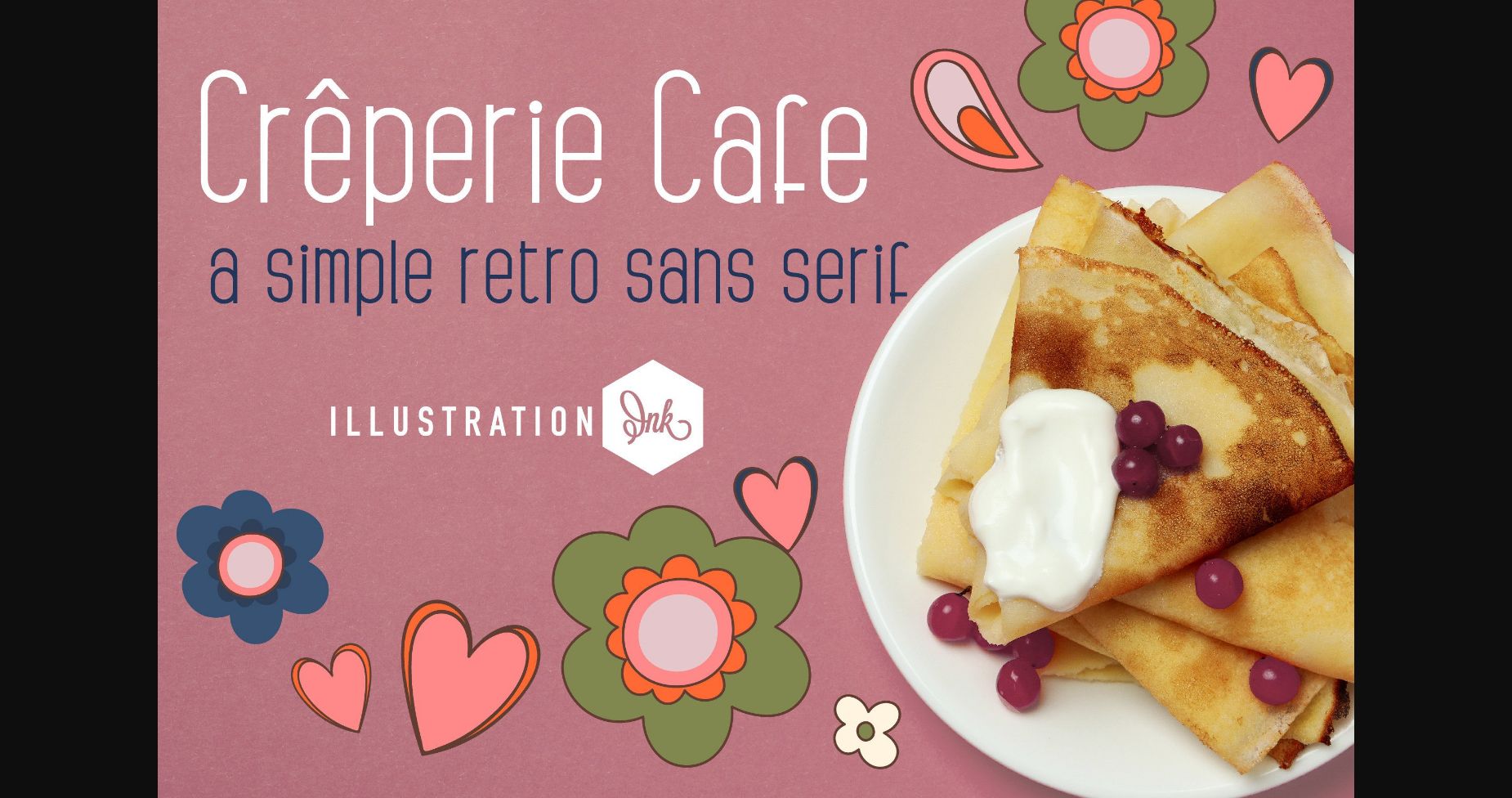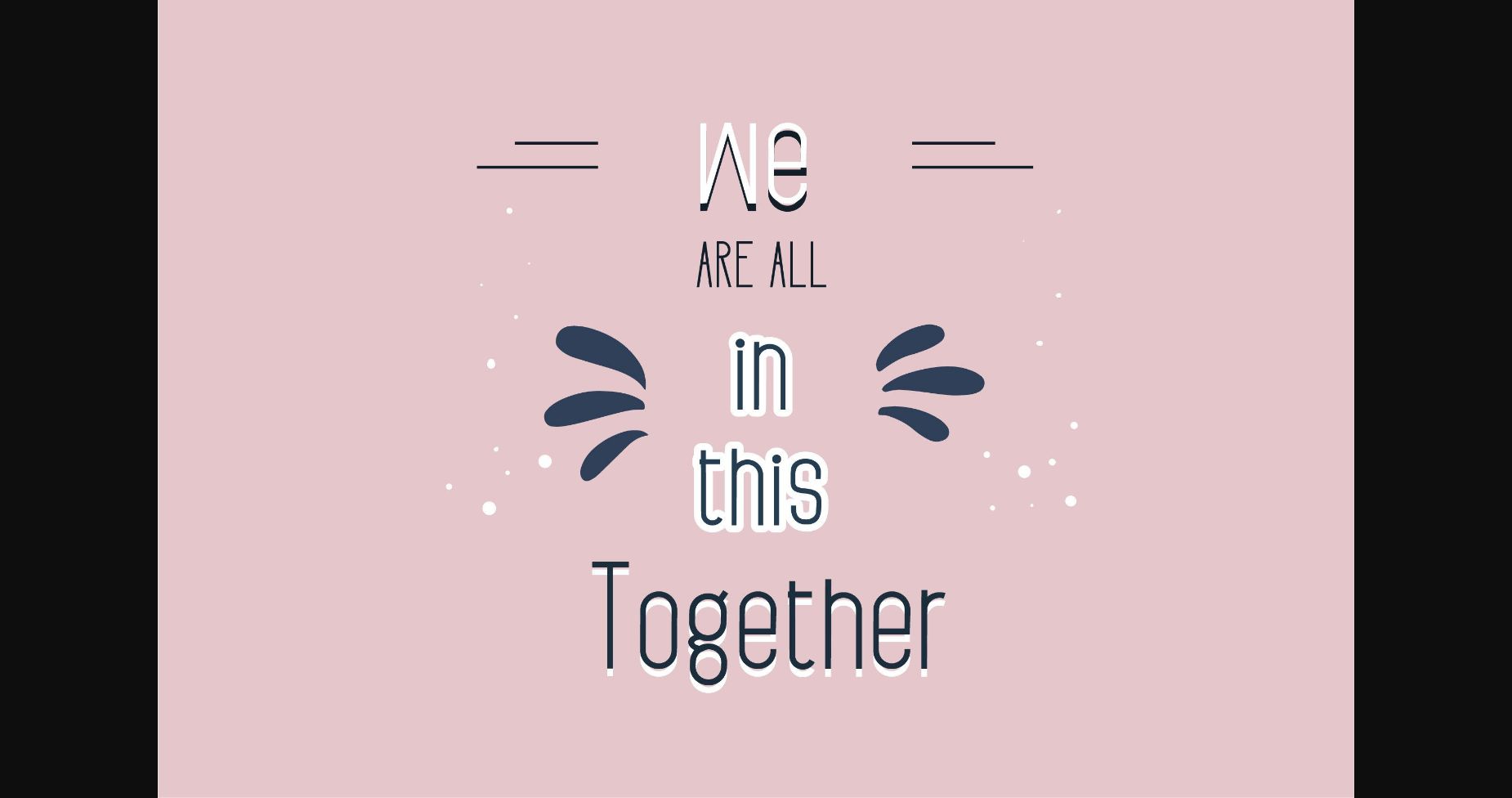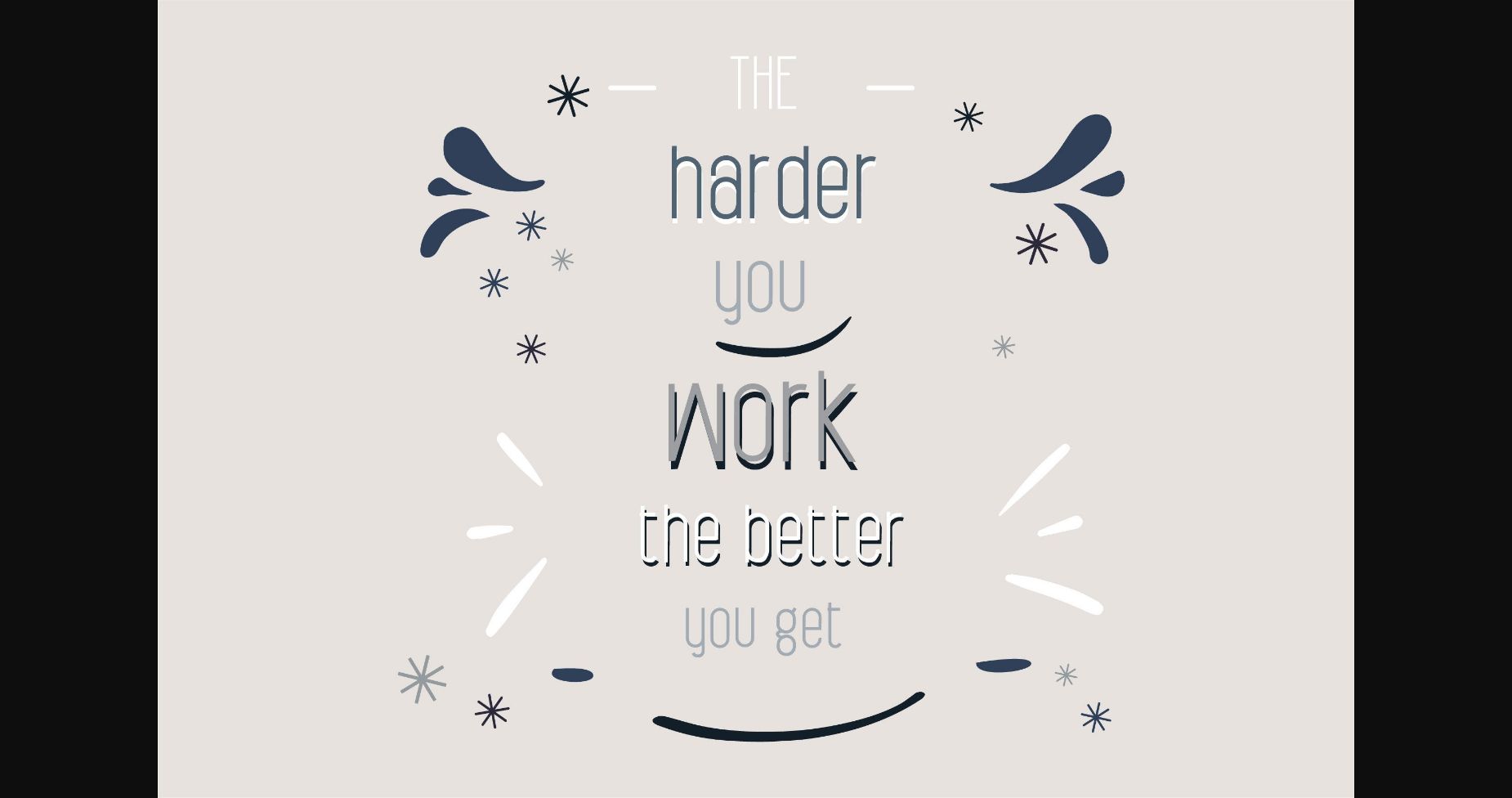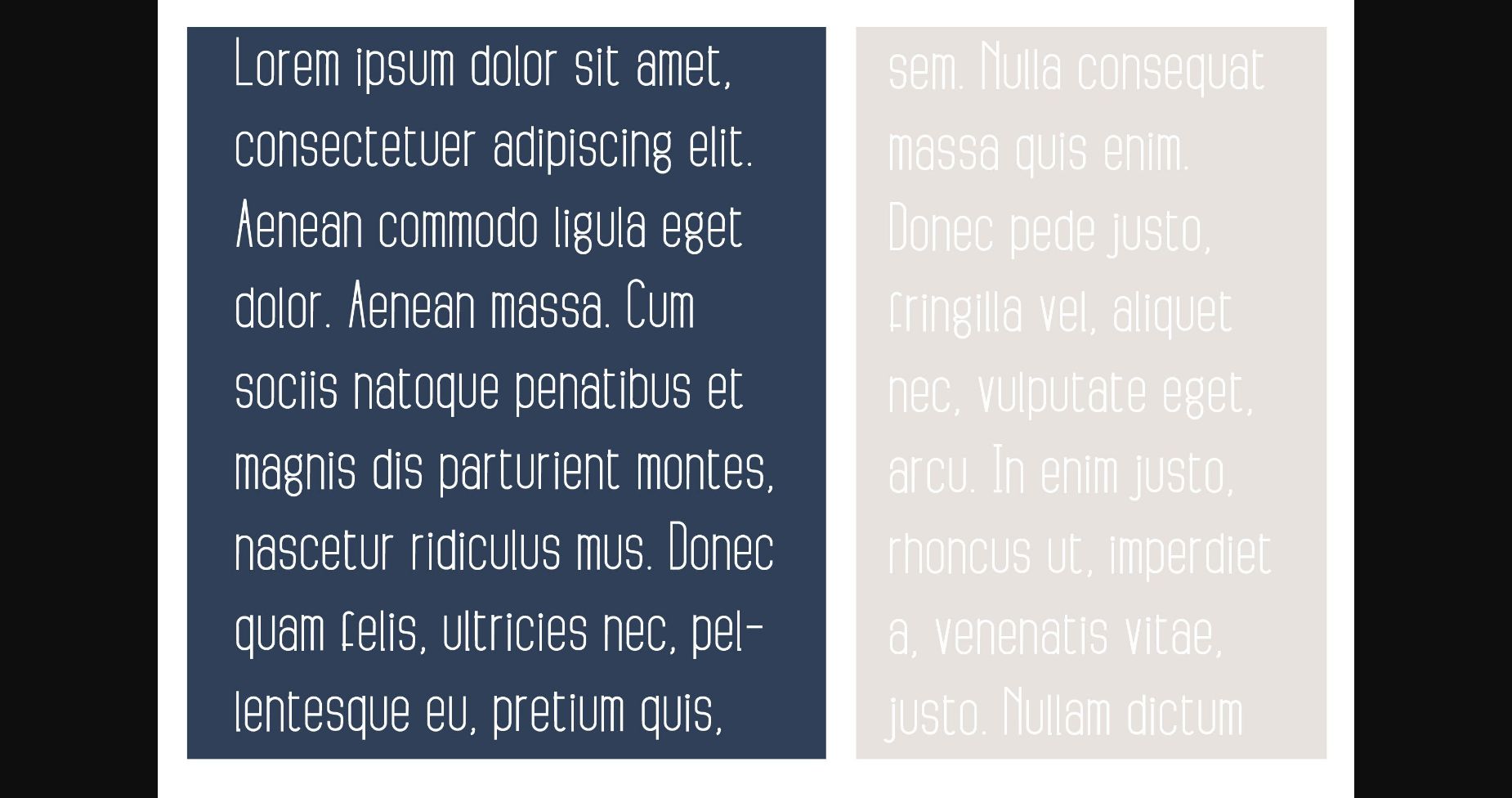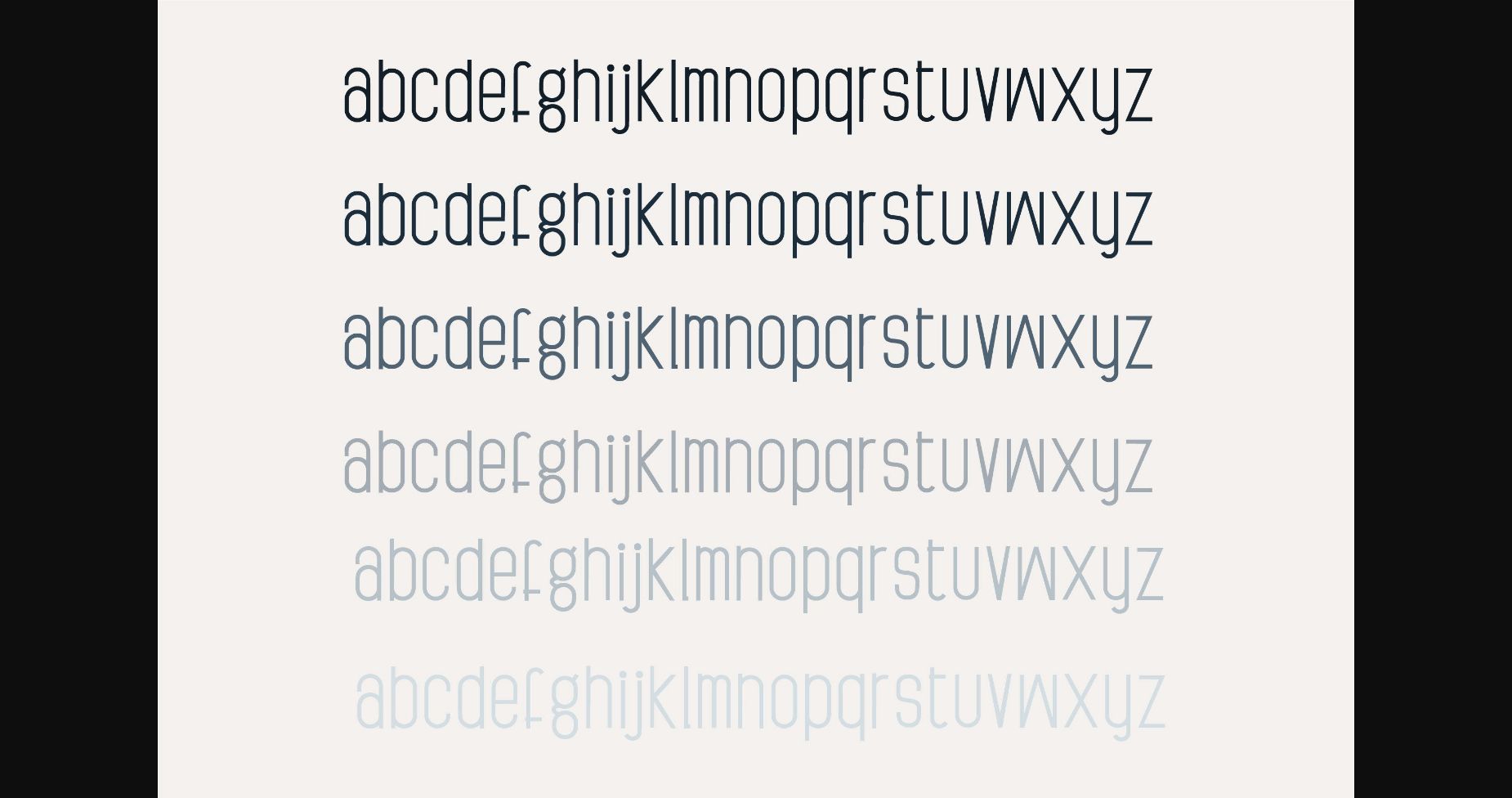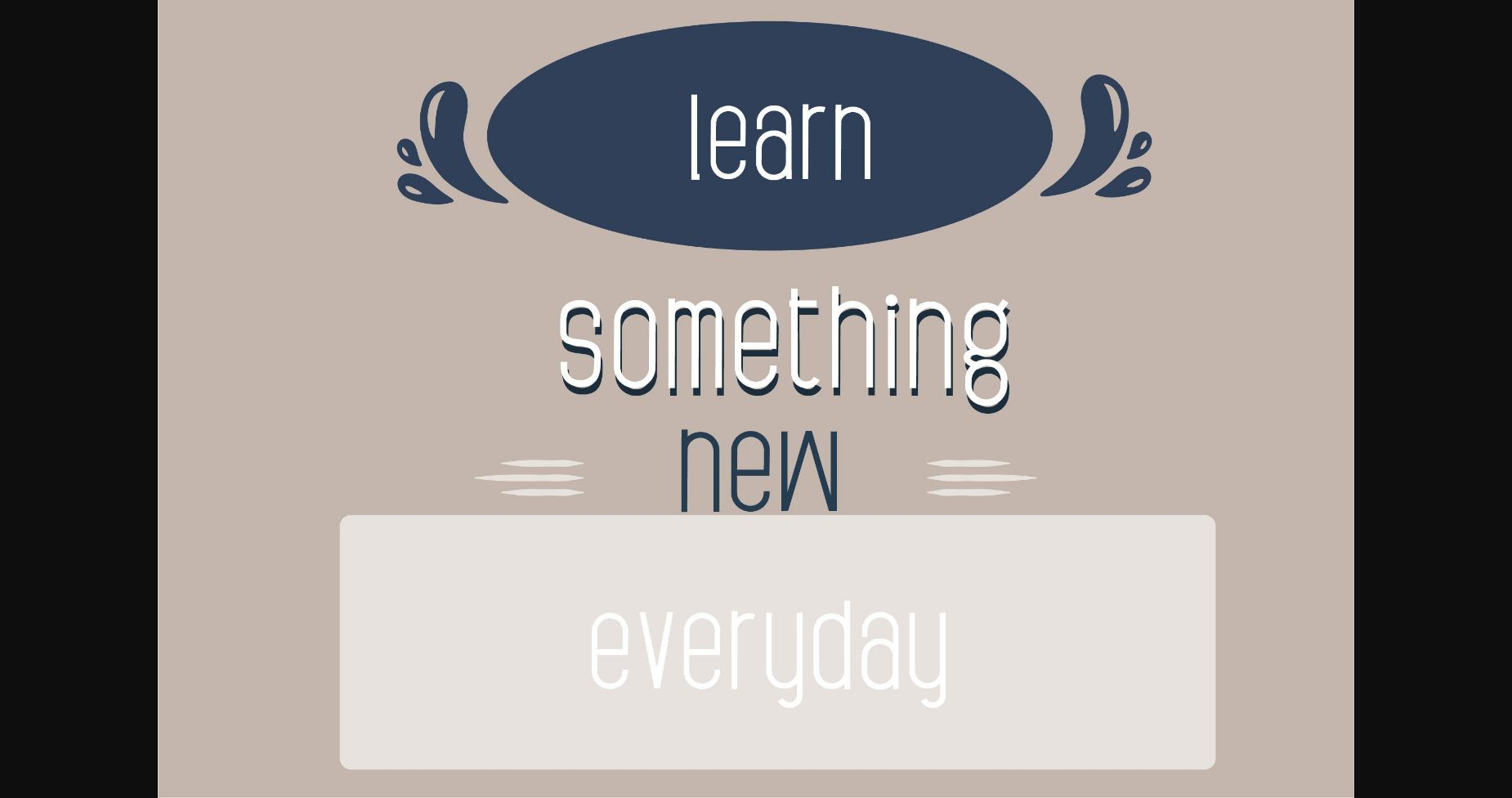
About Creperie Cafe Font
Creperie Cafe is a casual sans serif font. This typeface will enhance your craft with little effort, making your product stand out from the competition.